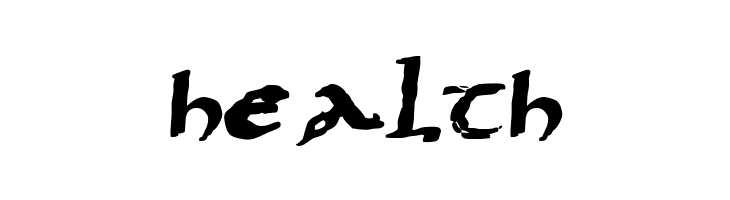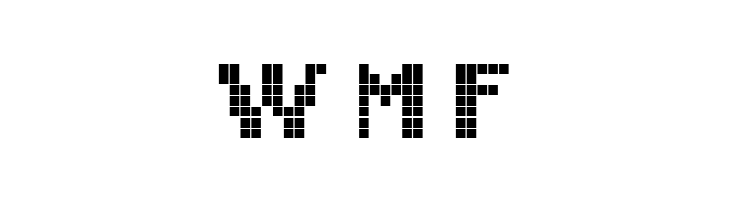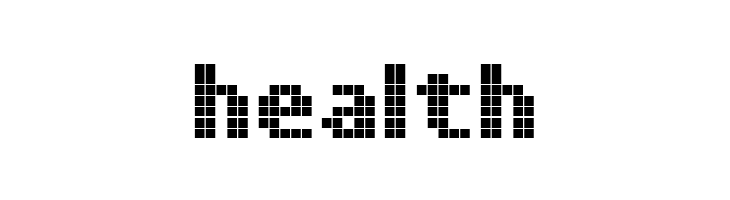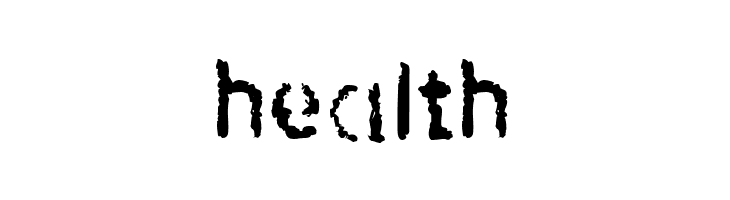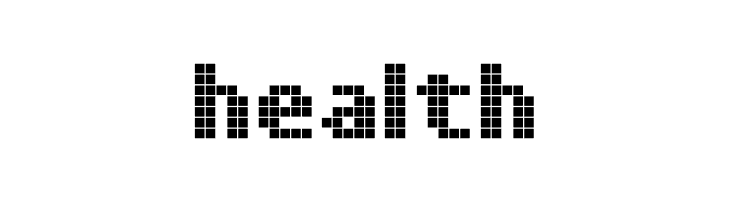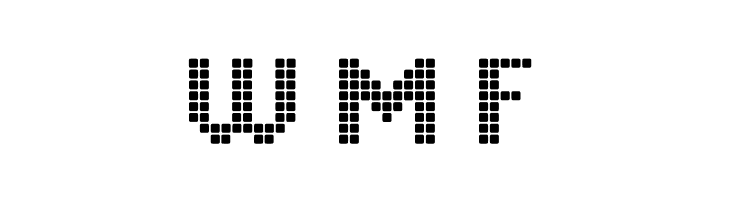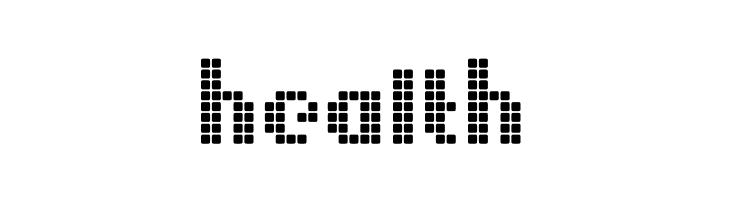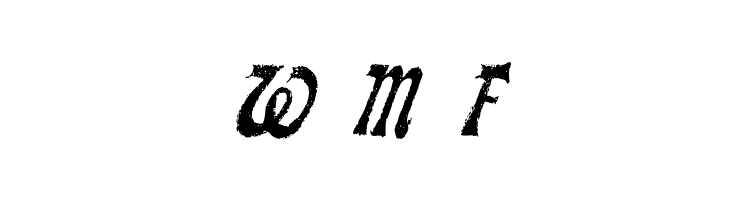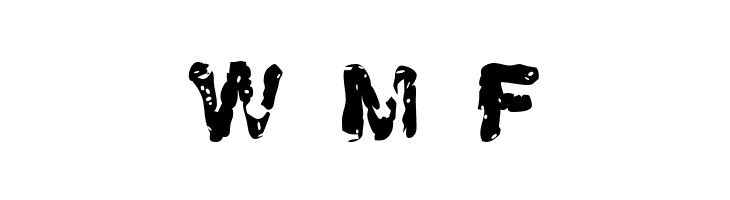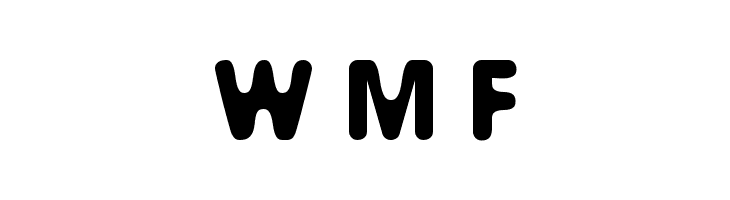
A bold, hand-drawn font with textured strokes and a playful, artistic style.
A bold, distressed font with a rugged, hand-drawn texture.
A bold, playful font with rounded edges and a bubbly appearance.
A bold, textured, and italicized font with a vintage, distressed style.
A bold, distressed font with a rugged, grunge-inspired style.
A bold, blackletter-style font with intricate, angular strokes and a medieval flair.
A pixelated, retro-style font with a digital aesthetic.
A pixelated, grid-based font with a retro digital aesthetic.
A pixelated, retro-style font with a digital, geometric appearance.
A rugged, stencil-style font with jagged edges and a bold presence.